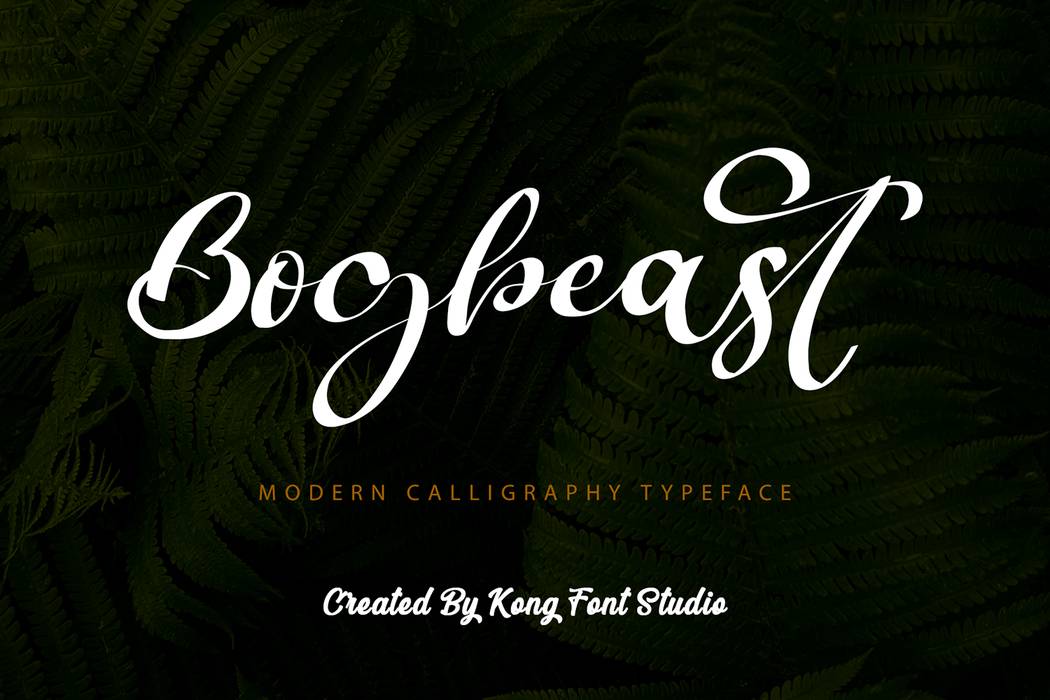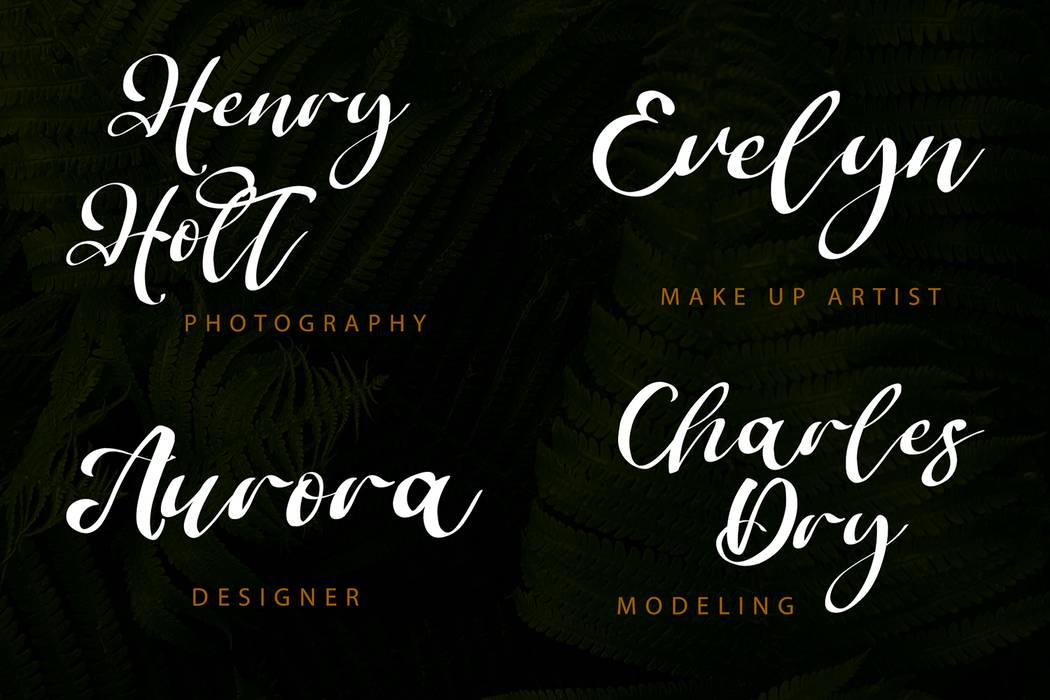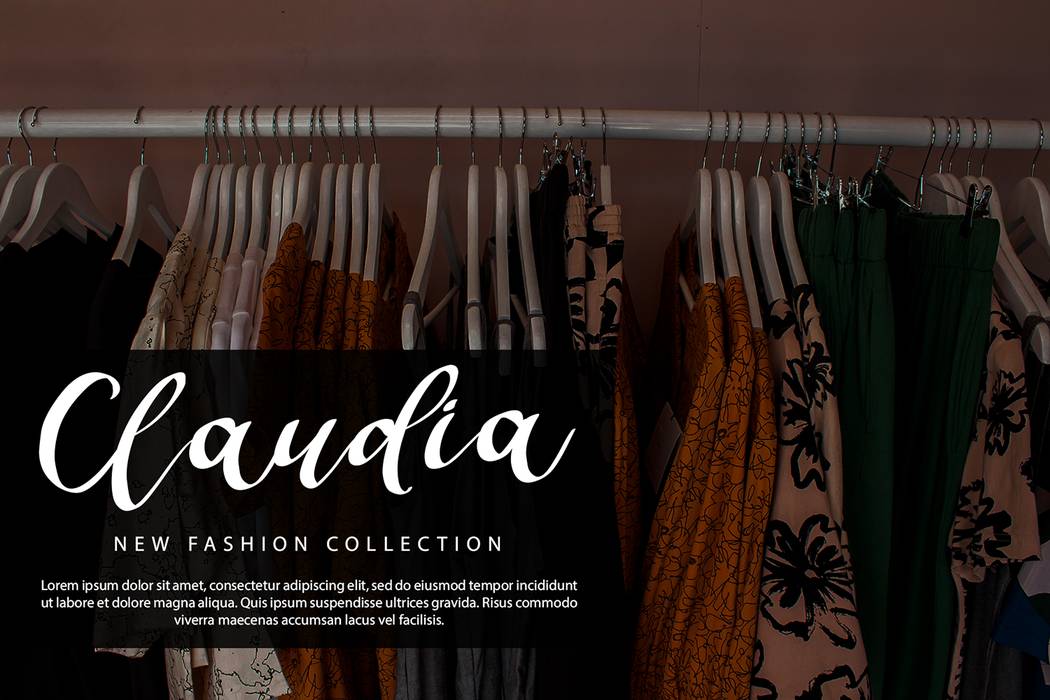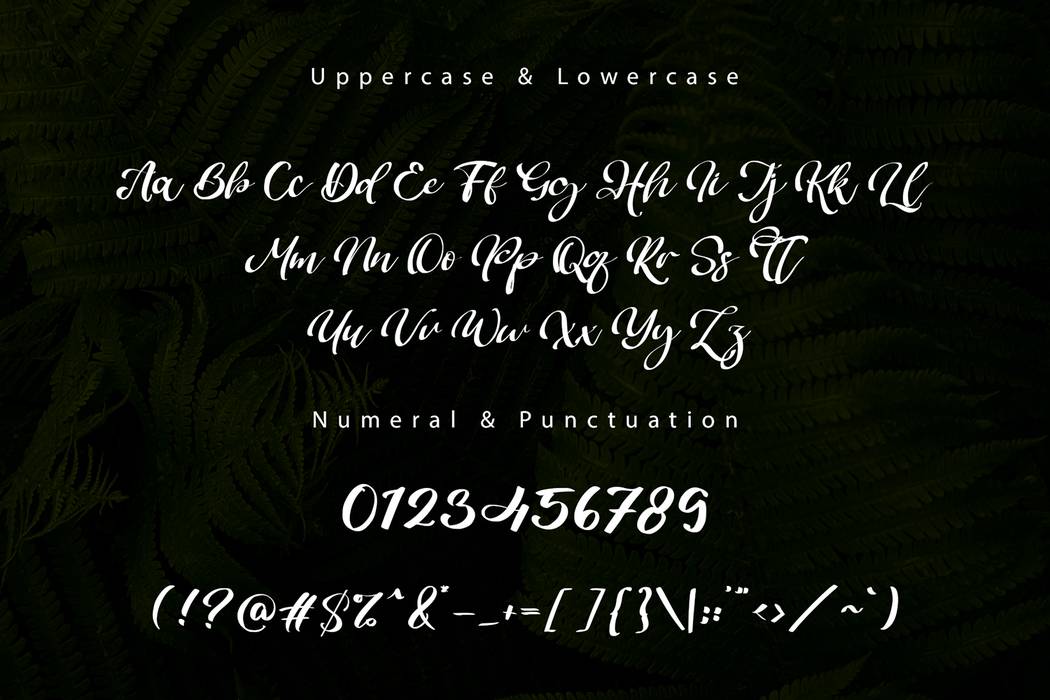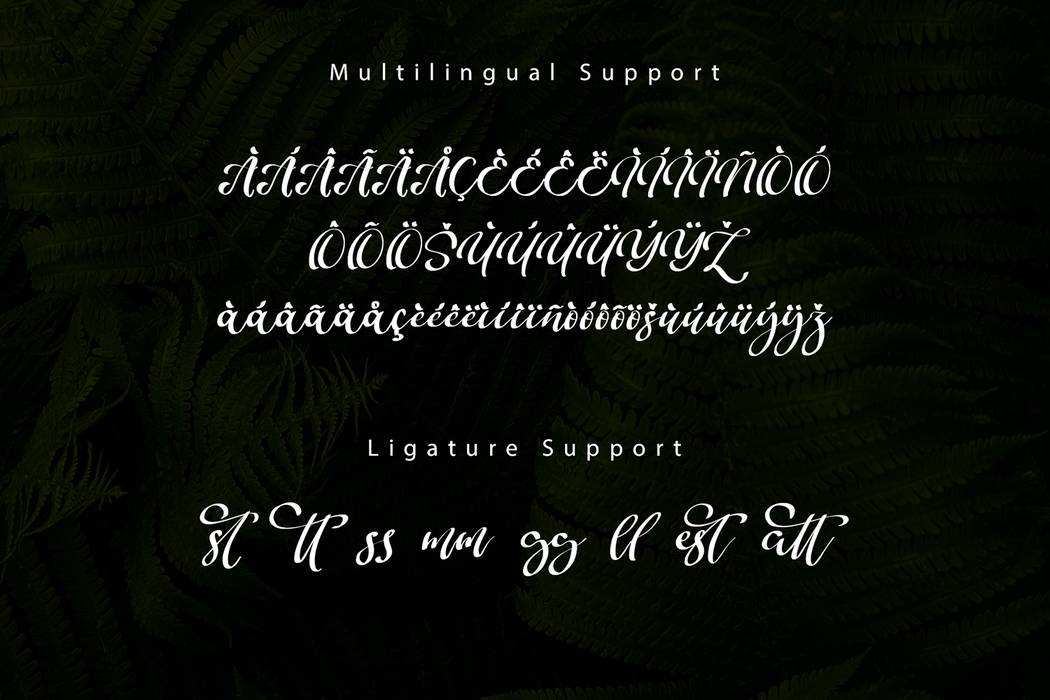
Bogbeast is an elegant and flowing script font characterized by its smooth, calligraphic strokes and distinct swashes that give it a graceful yet bold personality. With its moderate contrast and slightly condensed letterforms, it suits creative projects that need a touch of sophistication and flair, making it ideal for invitations, branding, and decorative headlines where a refined, artistic vibe is desired.
Bogbeast Font
About Bogbeast Font